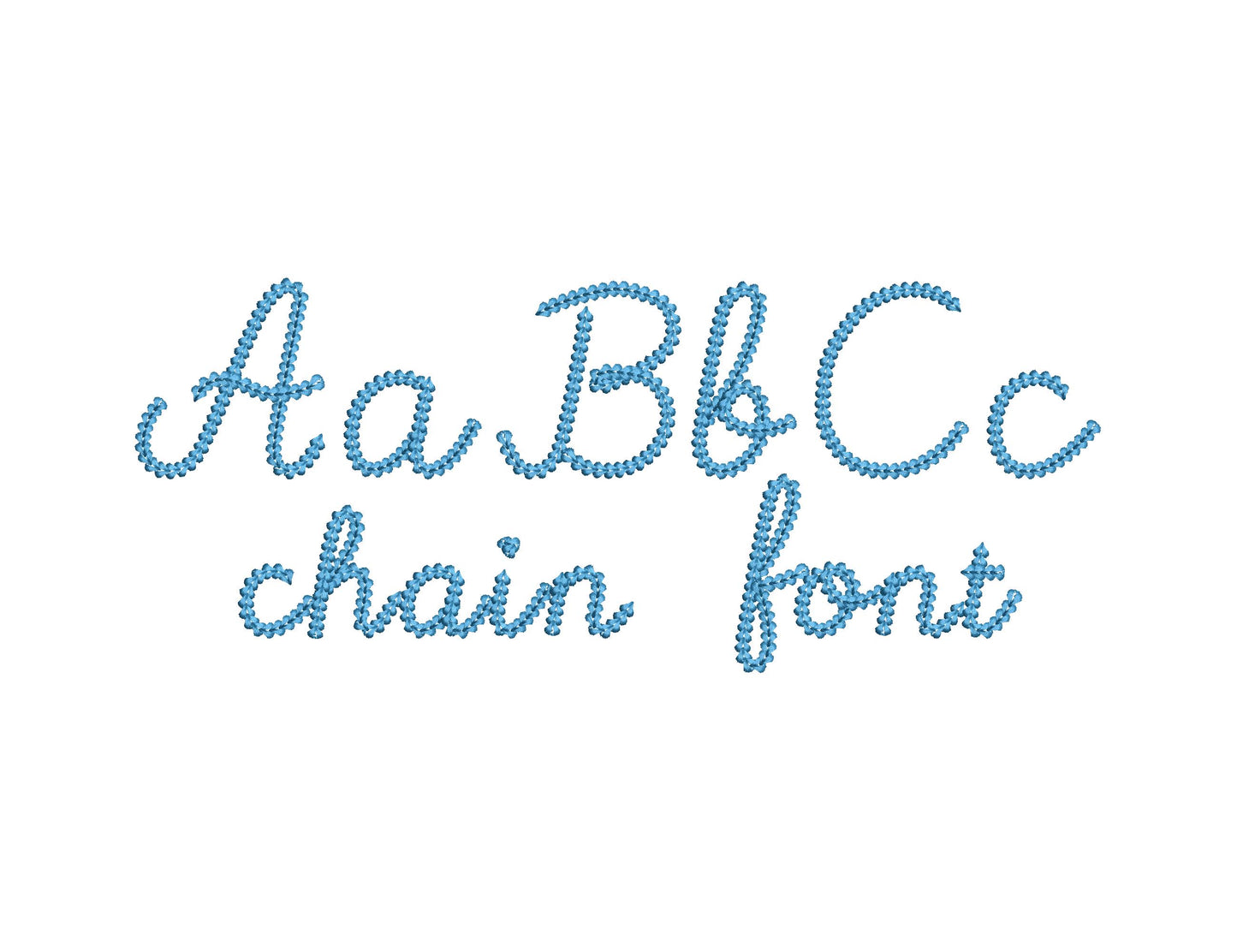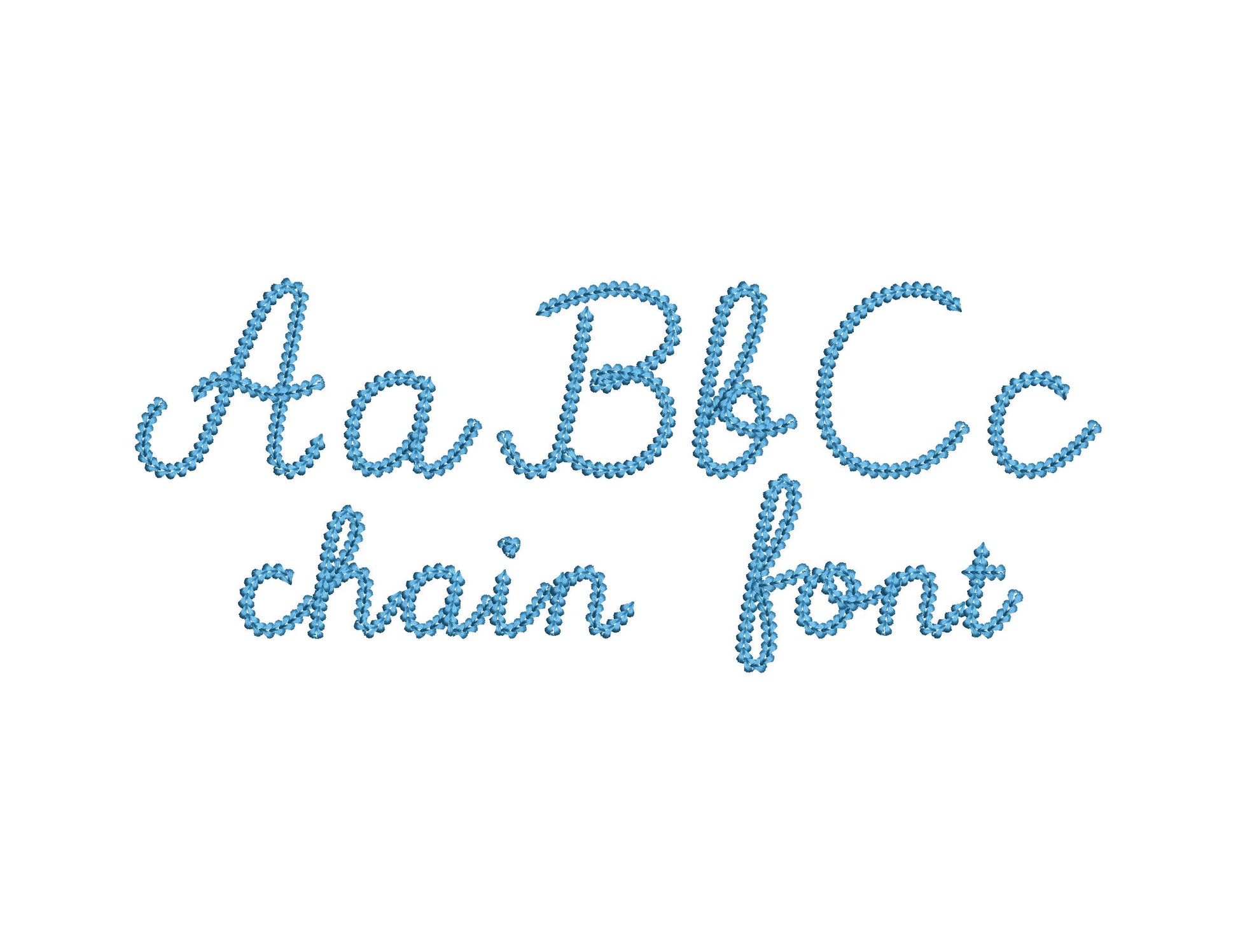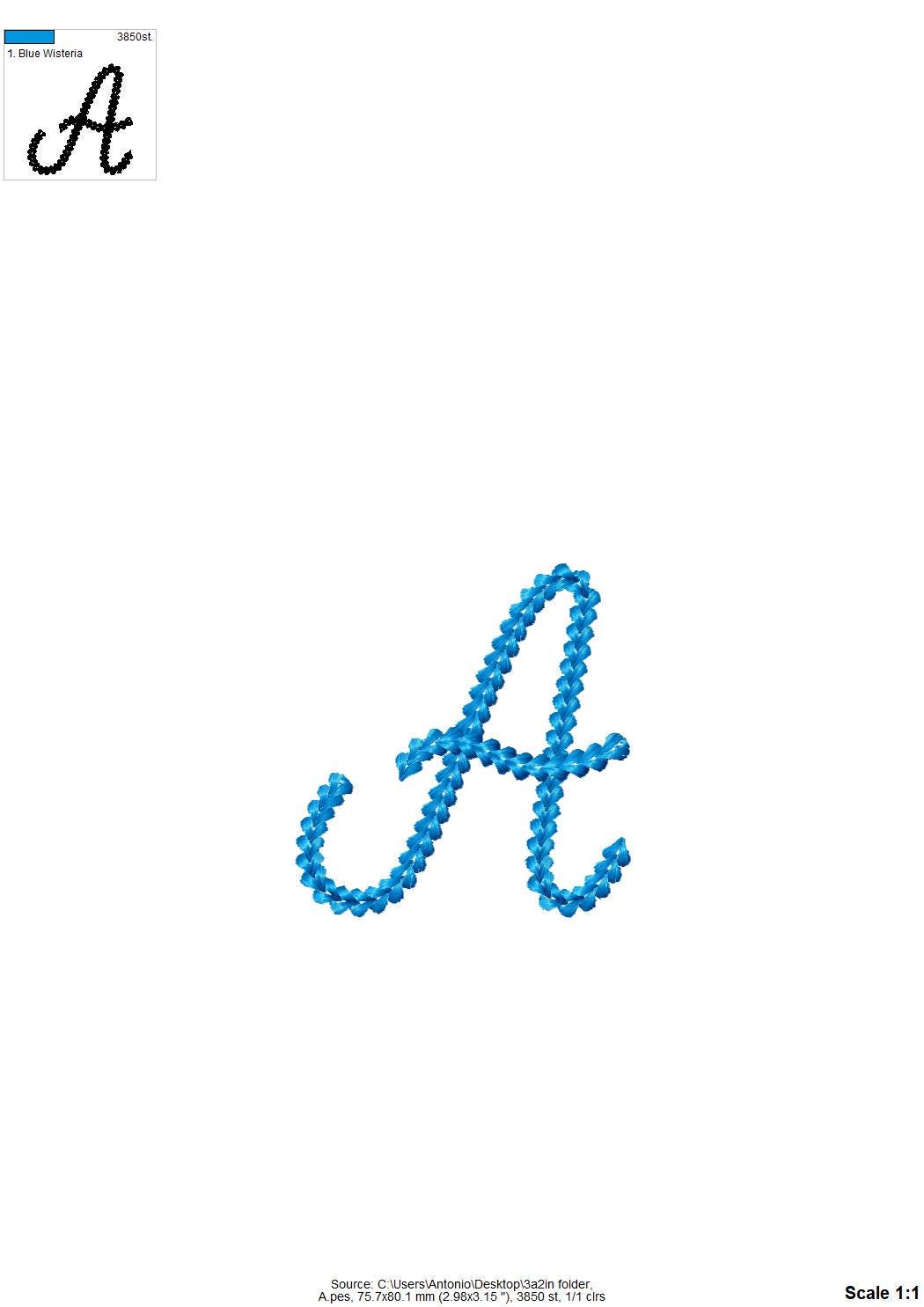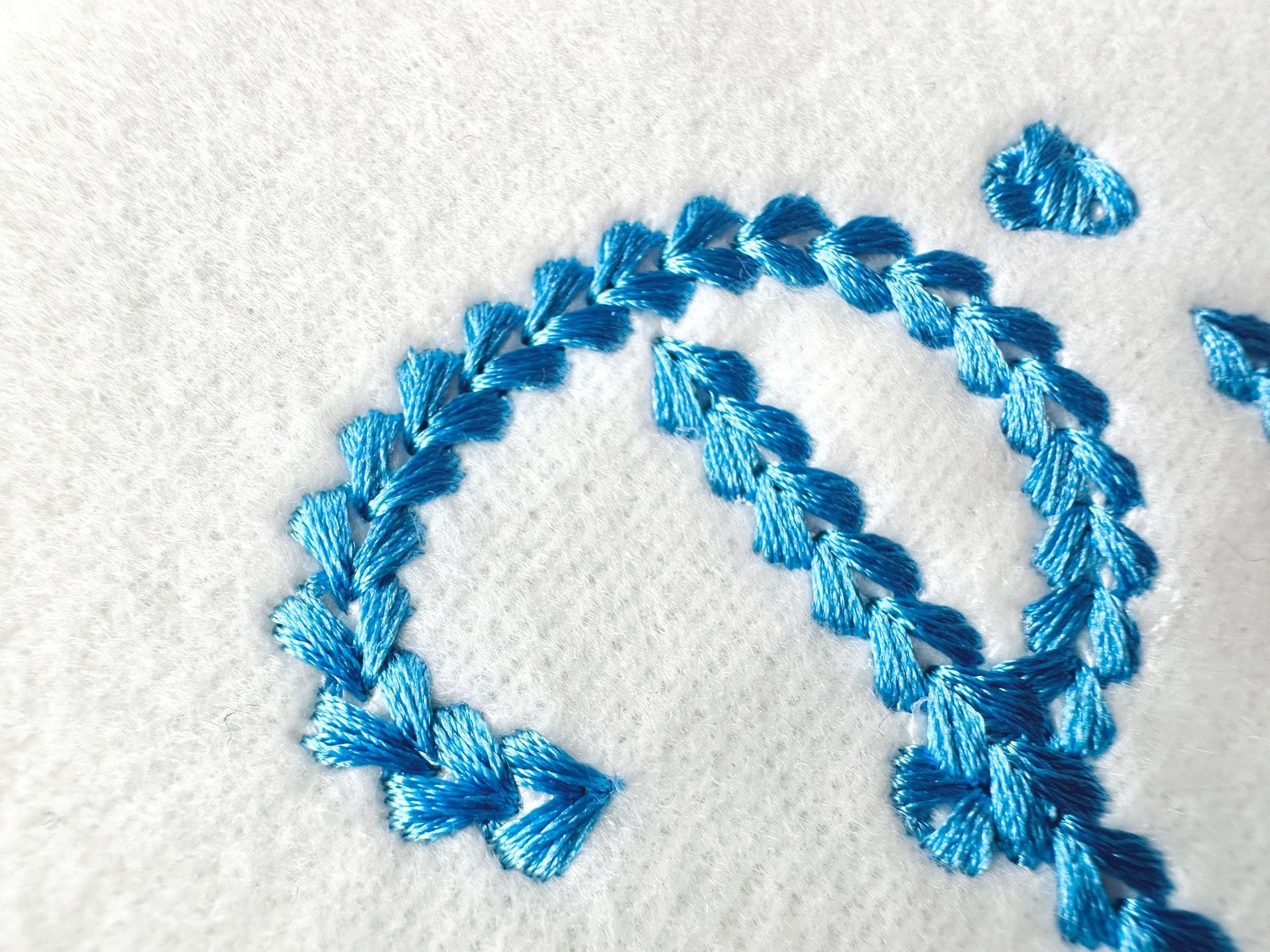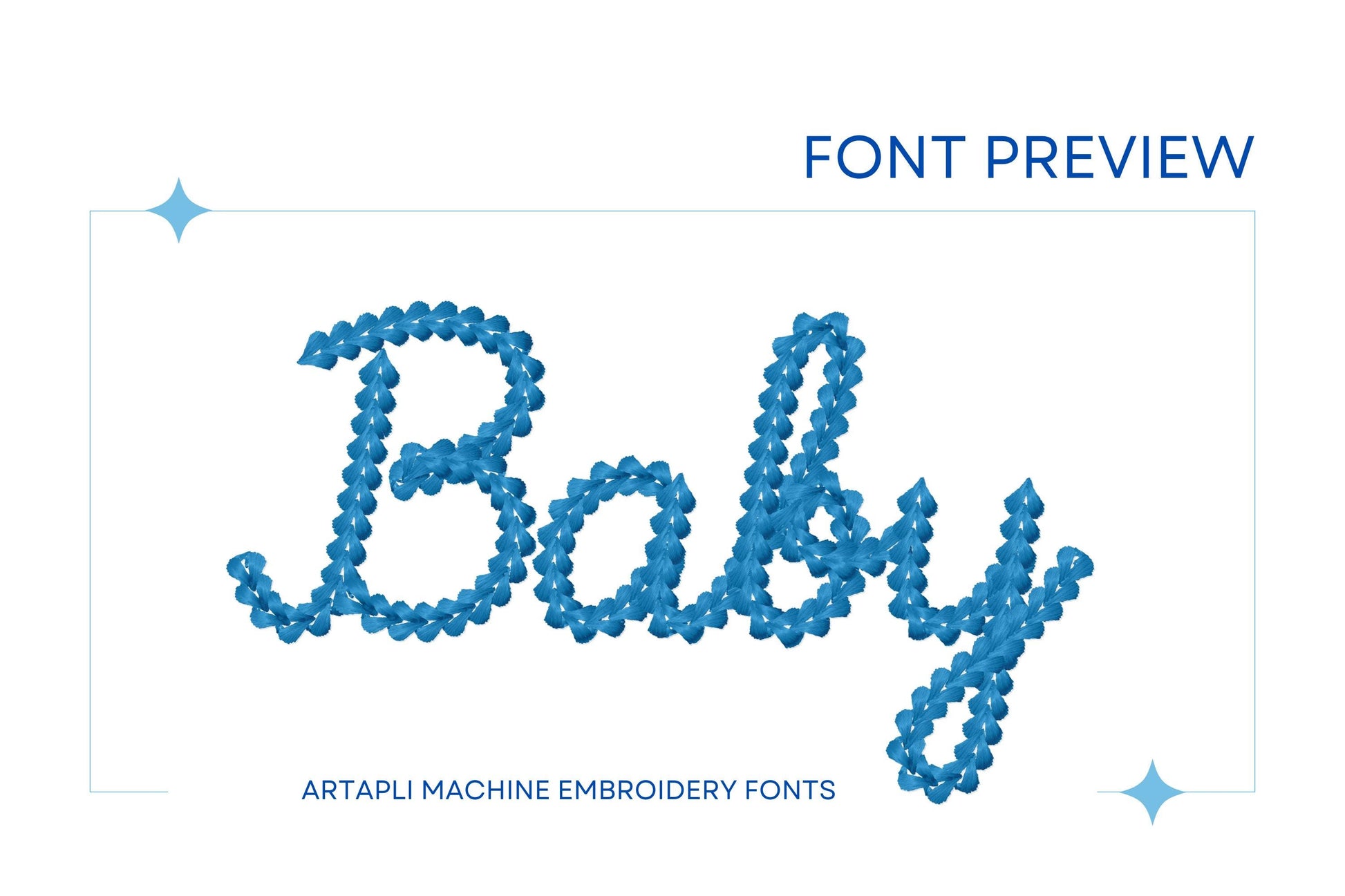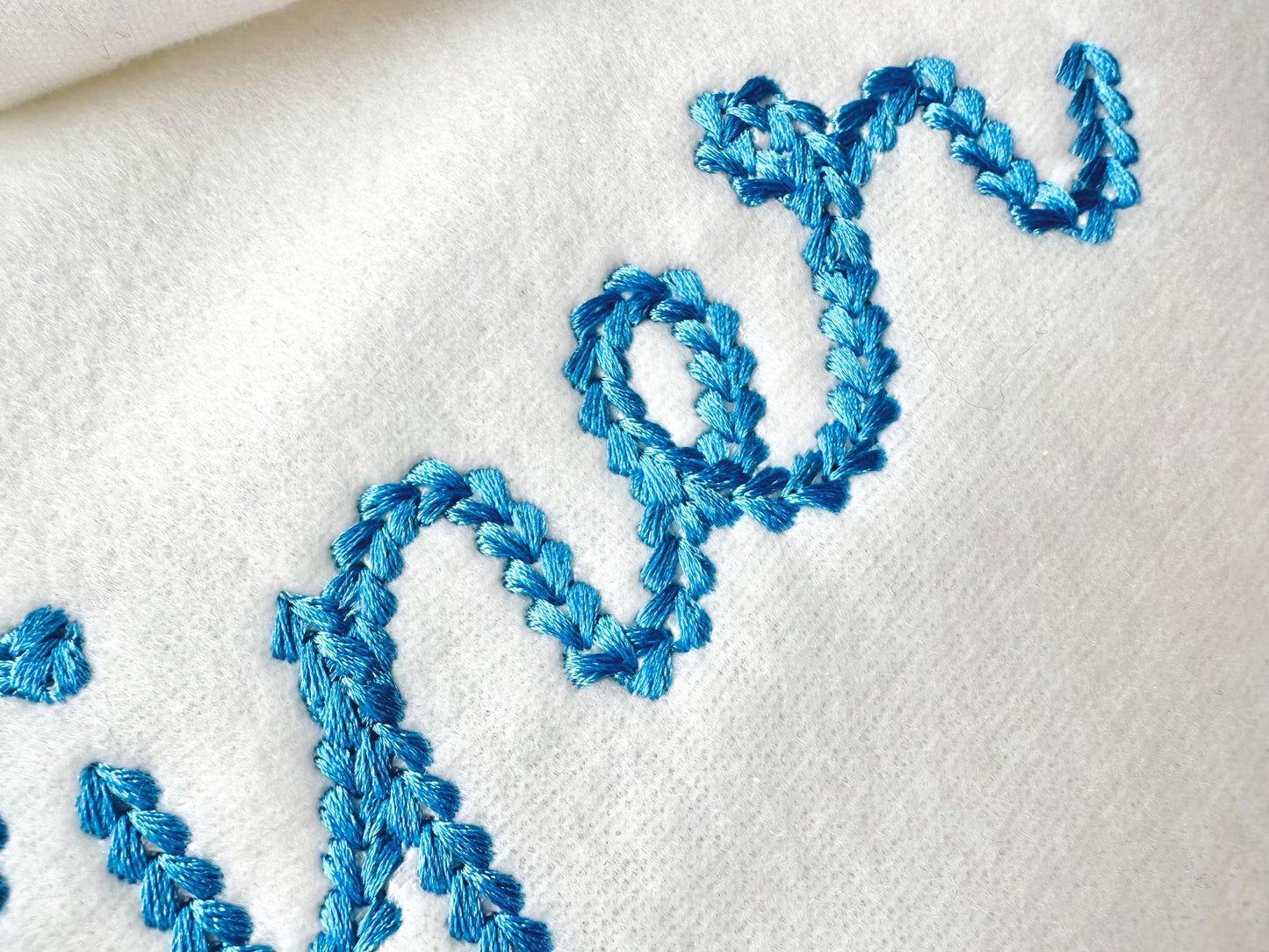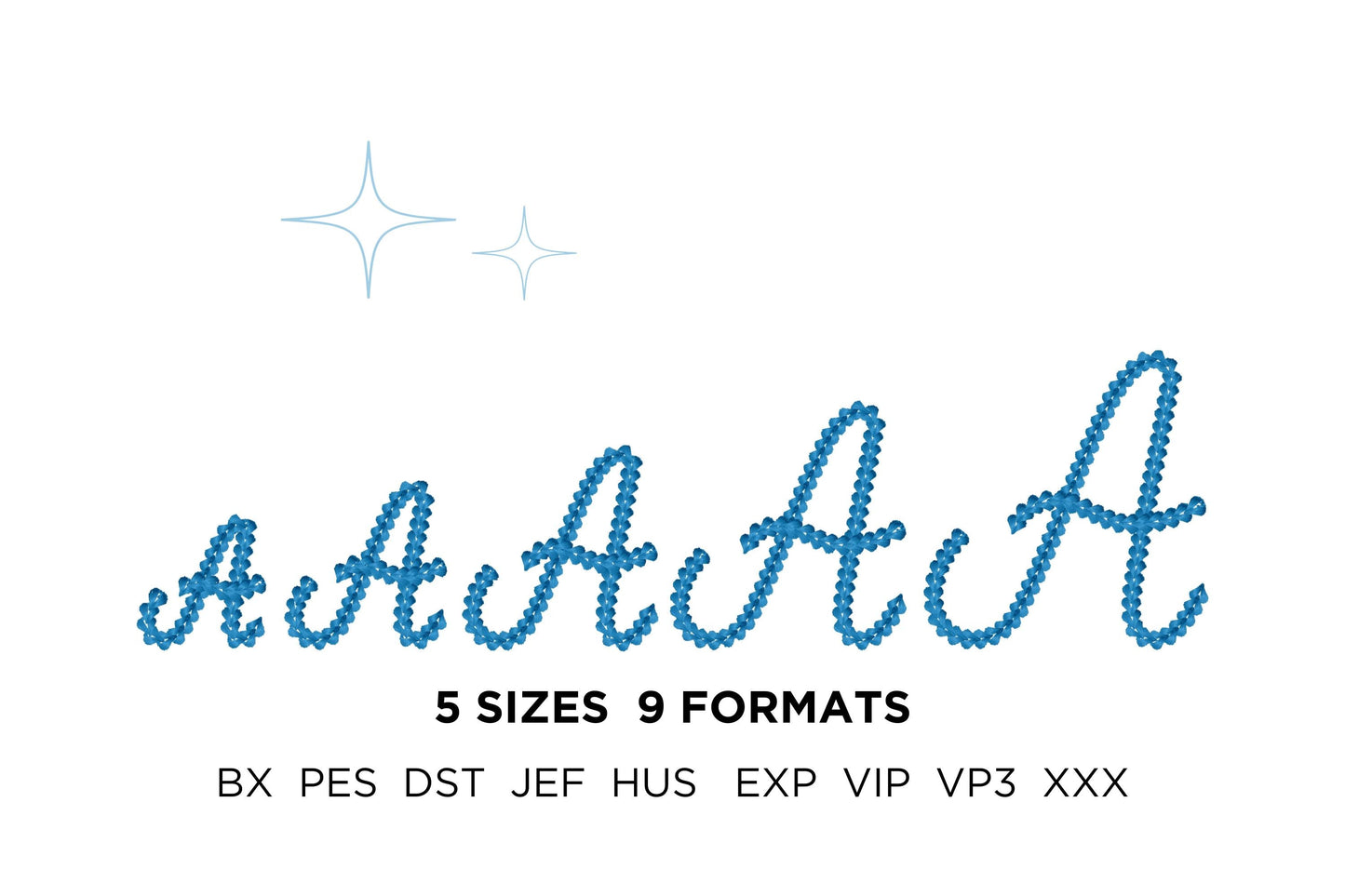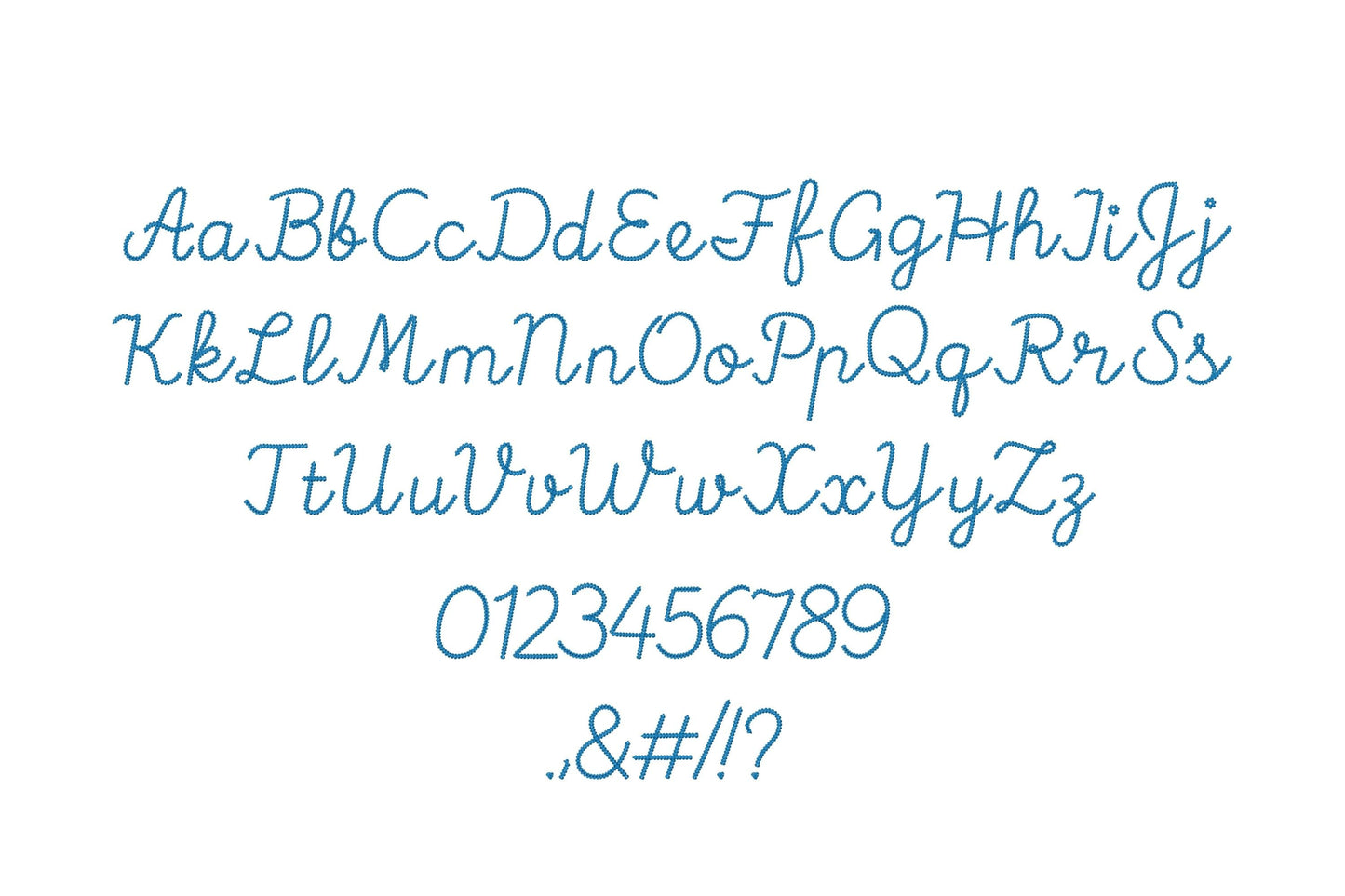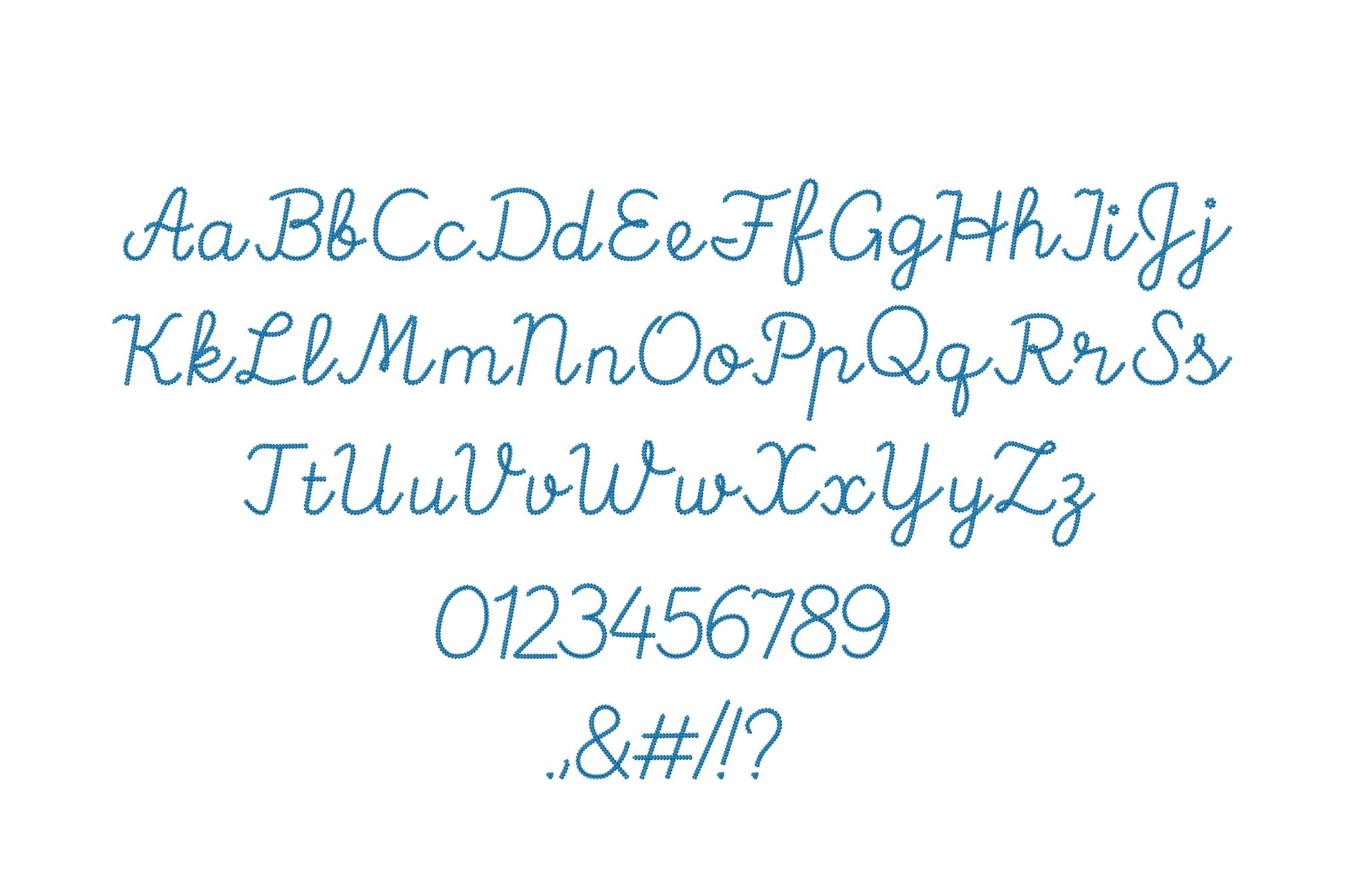
Extra Bold Chain Stitch Font Piper
Or click to open the linkPiper, an extra bold handwritten script in chain stitch with a knit look. Lovely for baby gowns, names, monograms and sayings.
Uppercase and lowercase letters, numbers 0 to 9 and punctuation, in five sizes: 1.7, 2.2, 2.6, 3.2 and 3.7 inches. Thick chain stitch gives each letter a hand-knit texture.
- Extra bold chain stitch script font
- Uppercase and lowercase letters, numbers 0-9, punctuation
- 5 sizes, 1.7 to 3.7 in